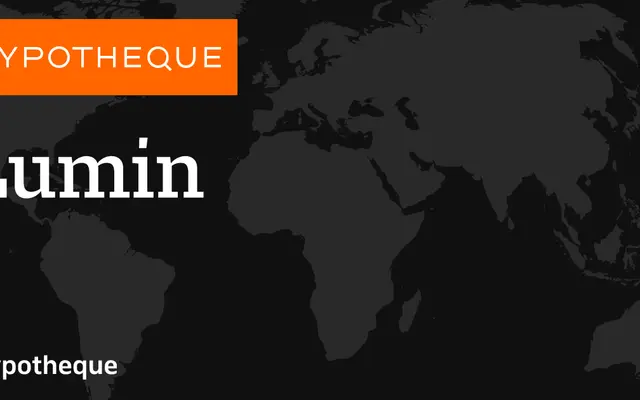
Lumin specimen from Typotheque
A large type system from Typotheque comprising a serif, a sans in condensed and standard widths, and a display subfamily with condensed and extended black cuts.
Lumin is organised as a cohesive system: a text serif running Light to Bold, a Lumin Sans family extending from Hairline to Bold with a matching Condensed subfamily, and a Lumin Display cut with Condensed, Extended and standard Black weights. All subfamilies include italics, and the system is available as a variable font. The range covers everyday text setting through to high-contrast display work within a single, consistently drawn family.
Lumin is a serif with a companion sans (Lumin Sans) and display cuts, structured as a large type system; the serif's proportions and the sans companion suggest a humanist approach suited to text and editorial use.